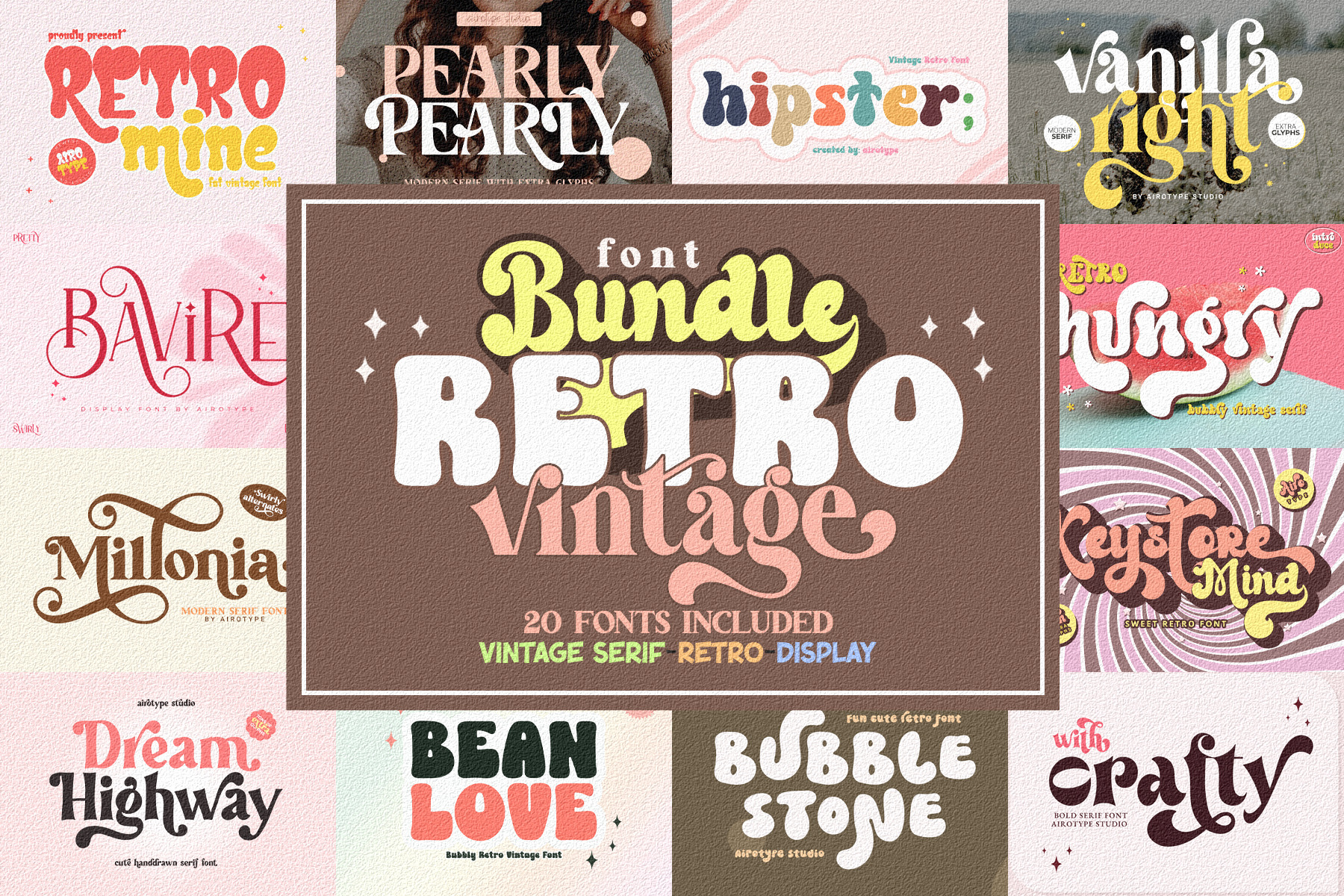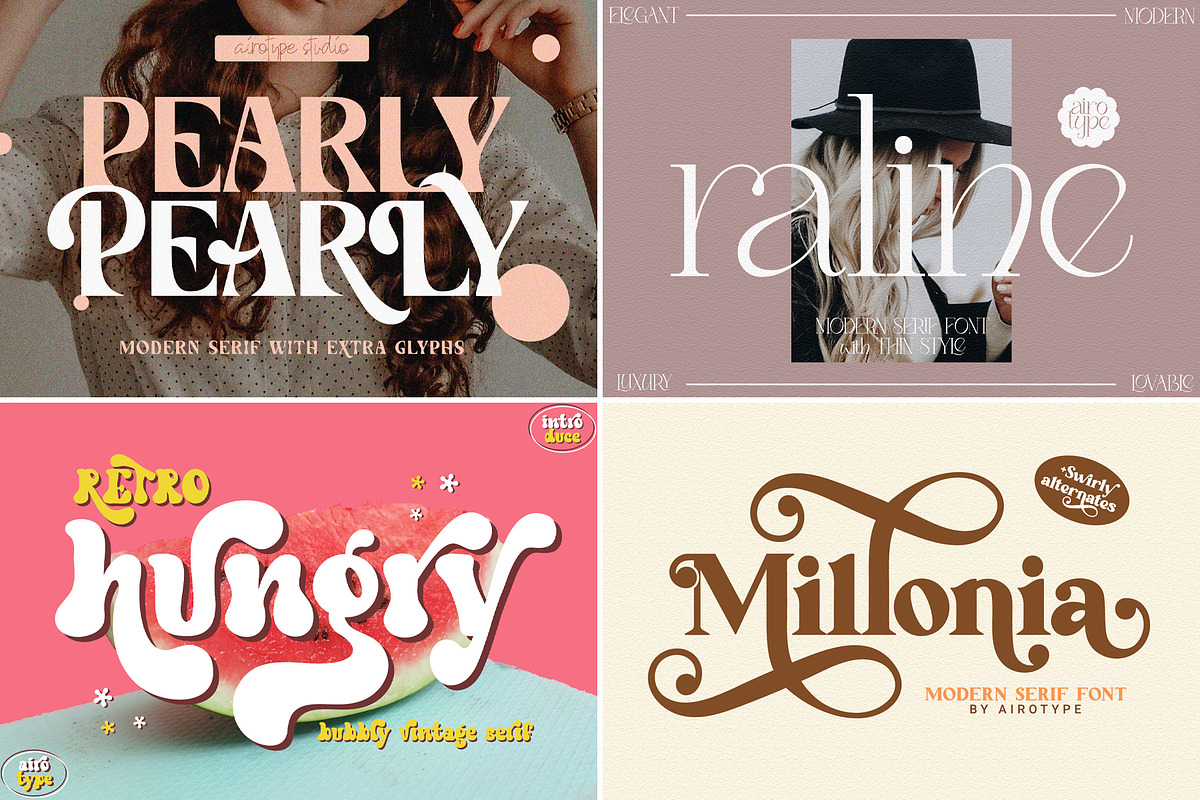
Retro Font Bundle - 20 Vintage Fonts
Retro Font Bundle Vol.1 is the collection of vintage and groovy fonts from Airotype Studio. It includes few types of font, from bubble font, serif font with alternative, cute font, and all caps ligature font.
20 Fonts included in this bundle are:
- Blinkdate
- Jamila Meltova (Serif)
- Jamila Meltova (Script)
- Kollagen
- Bavire
- School and Chalk
- Keystore Mind
- With Crafty
- Retro Hungry
- Vanilla Right
- Retro Mine
- Raline
- Adore
- Pearly
- Millonia
- Dream Highway
- Bean Love
- Winter Diamond
- Hipster
- Bubble Stone
Each font in the bundle is suitable and perfect for any kind of your project, such as crafting, graphic design, quotes, vintage design, tshirt design, sublimation, stickers, posters, photography, and many more.